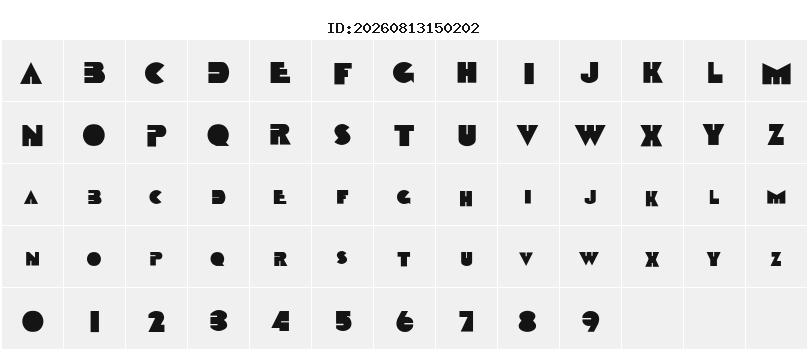
RSSharktooth Preview
About RSSharktooth.ttf
RSSharktooth.ttf is a modern, elegant sans-serif font designed for ultimate readability and visual harmony. Perfect for branding, headlines, web design, and print materials.